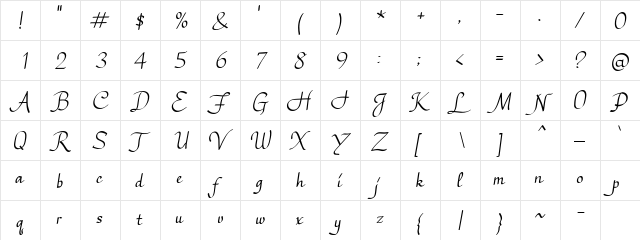
CK Serendipity Regular
Design Context for CK Serendipity Typeface
CK Serendipity is a composed and adaptable typeface that performs quietly and consistently across a wide range of design contexts.